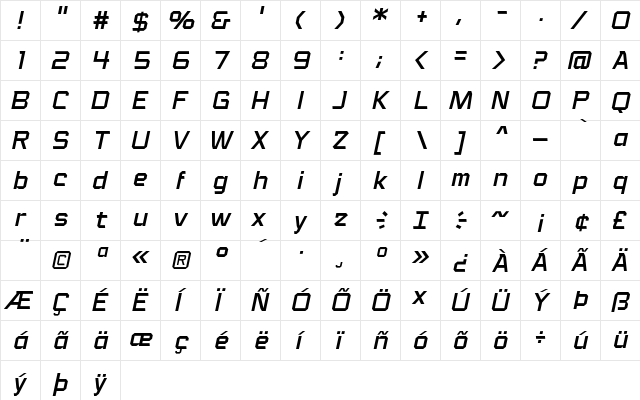
Voice Activated BB Italic
Design Context for Voice Activated BB Typeface
Voice Activated BB is a composed and adaptable typeface that performs quietly and consistently across a wide range of design contexts. The dynamic lean of this cut emphasises speed and emphasis in any layout.
Pro Tip: Try Voice Activated BB for annotation and caption copy alongside an upright companion — the contrast in angle creates a dynamic but ordered typographic system.